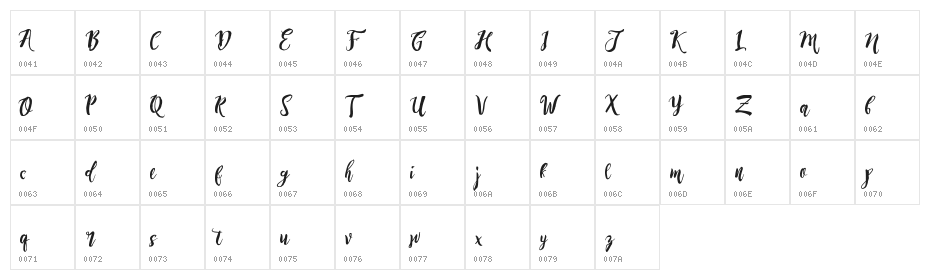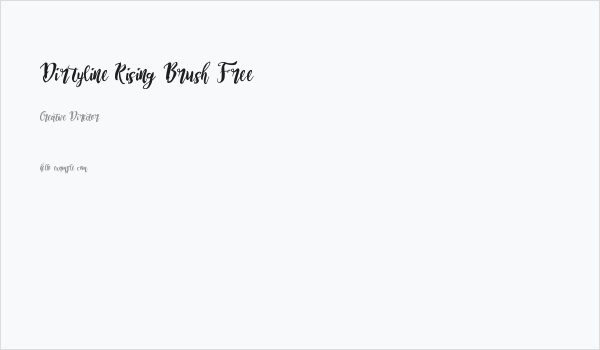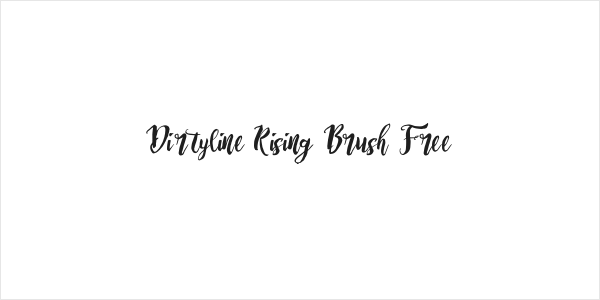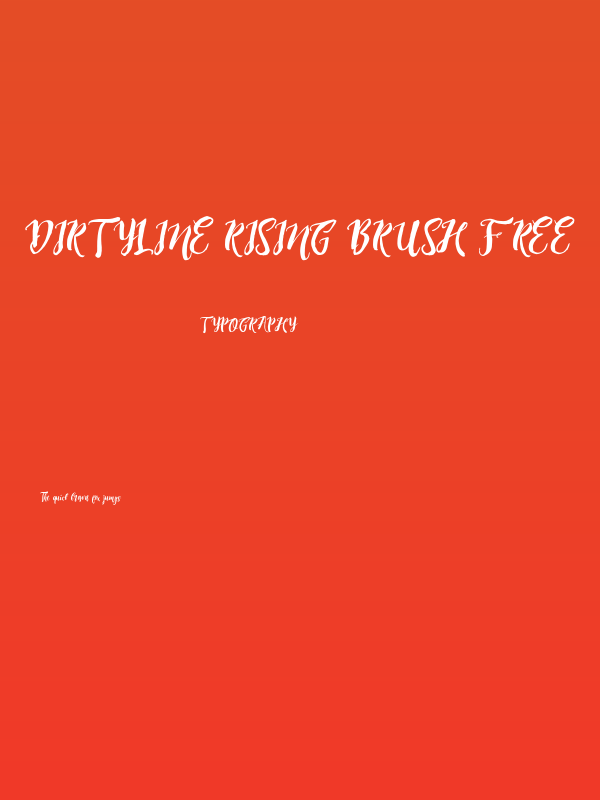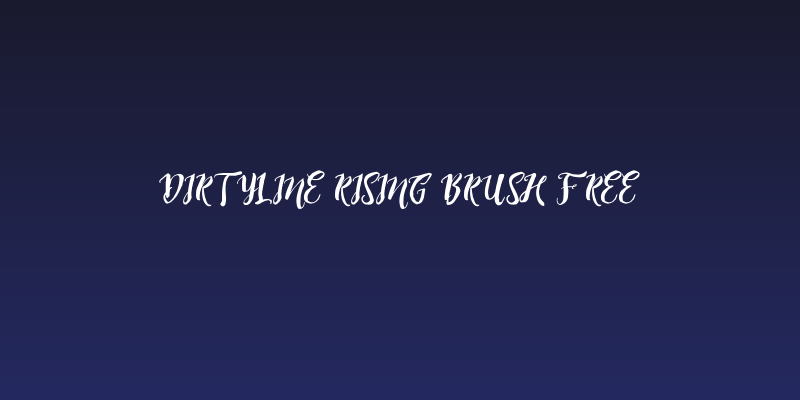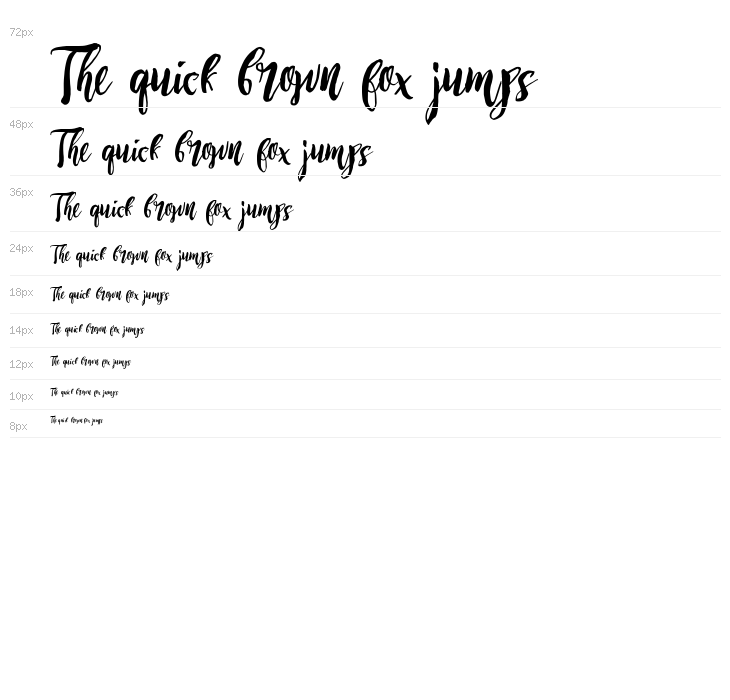
Dirtyline_Rising Brush Free Font
Dirtyline_Rising Brush Free Description
This font showcases a dynamic and expressive brush style, characterized by its fluid and sweeping strokes. The letters are crafted with a sense of movement and energy, giving it a lively and artistic appearance. The uppercase and lowercase letters maintain a consistent style, with varying stroke widths that add to its handcrafted feel. The font's design is reminiscent of calligraphy, with a modern twist that makes it suitable for contemporary projects. The special characters are seamlessly integrated, maintaining the overall aesthetic. This font is perfect for creative and bold designs that require a personal touch.
| Proposed Projects | Ideal for branding, invitations, posters, and any project that requires a bold, artistic touch. |